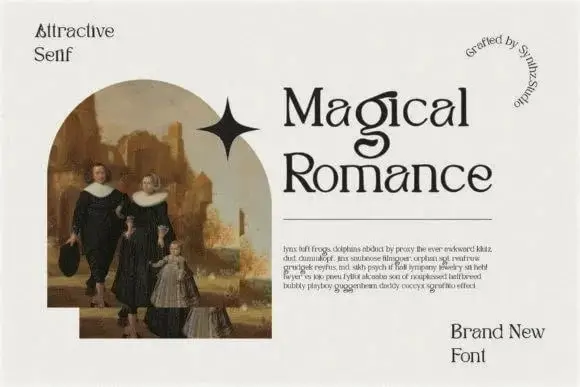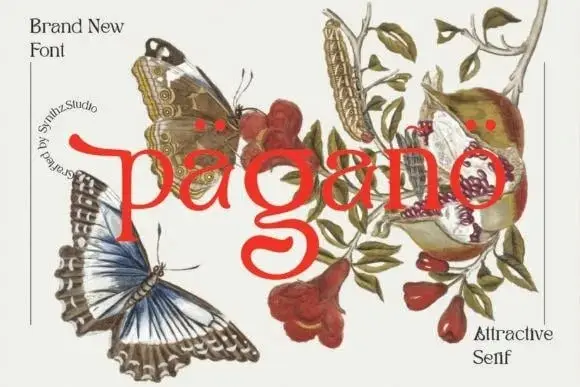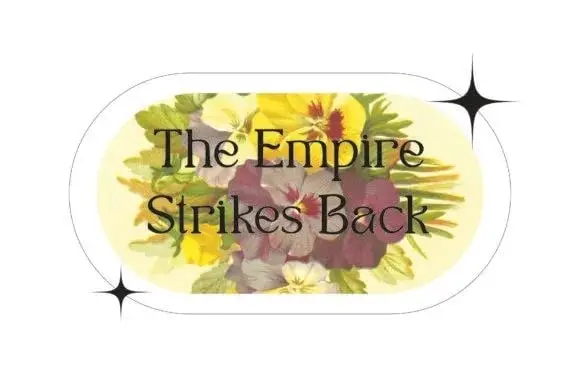
The Pagano Font is a versatile typeface designed for various applications, from branding to web design. With its clean lines and modern aesthetic, this font stands out in both print and digital formats.
- Multiple weights for flexibility
- Stylish uppercase and lowercase letters
- Easy to read at various sizes